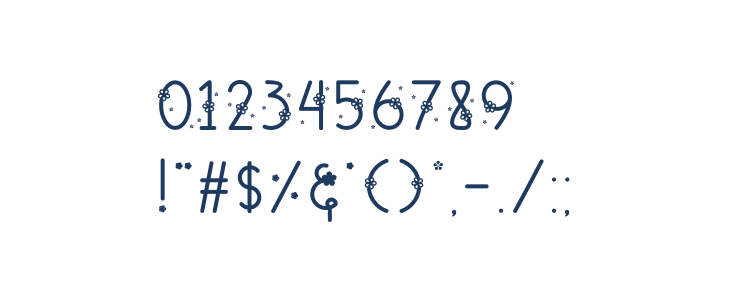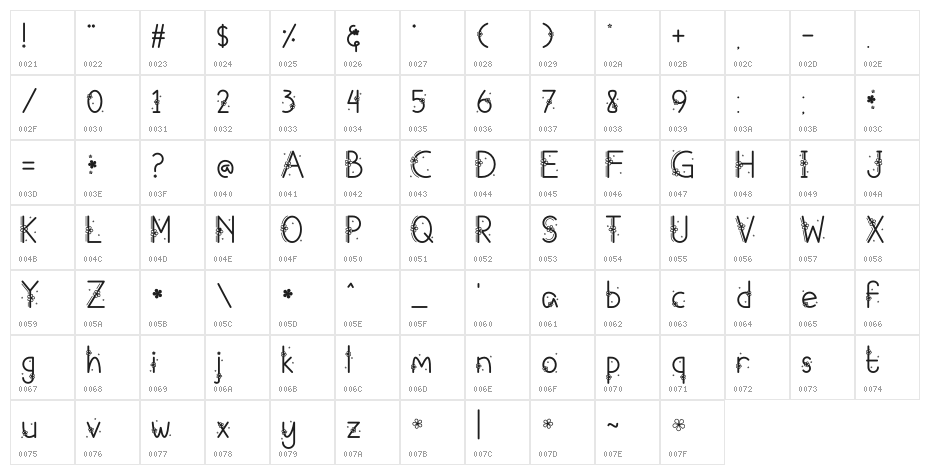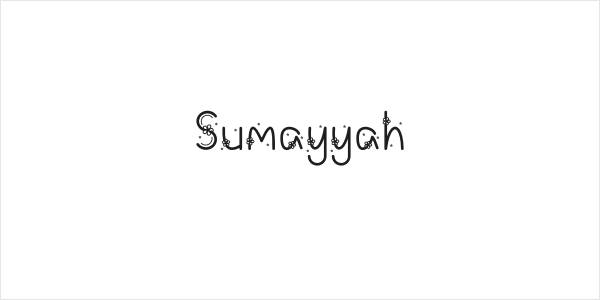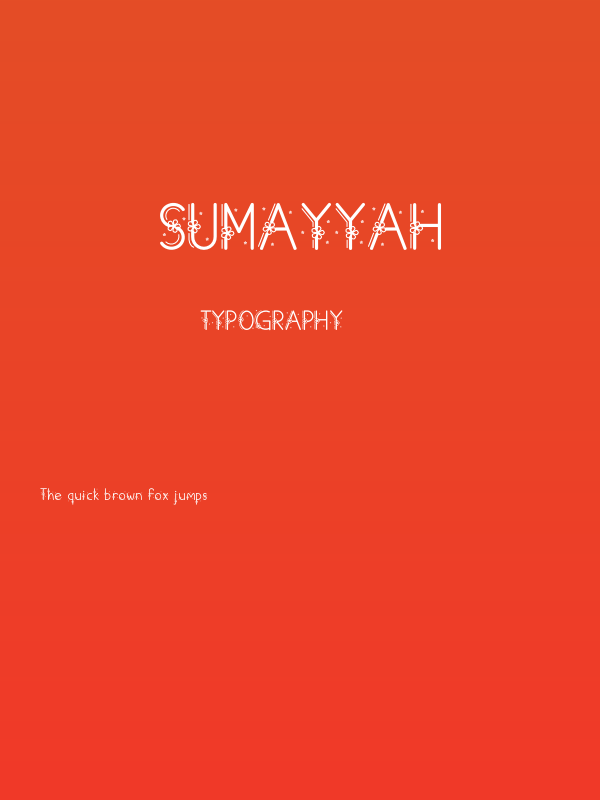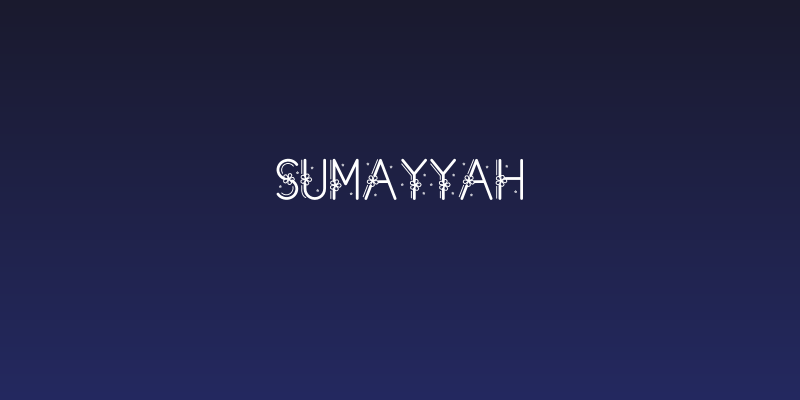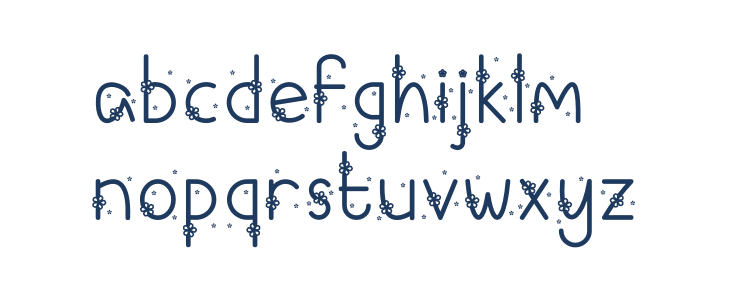
Sumayyah Font
Sumayyah Description
This decorative font features a playful and whimsical design, incorporating small floral elements within the structure of each character. The uppercase and lowercase letters maintain a consistent style, with rounded edges and a moderate stroke width. The numbers and special characters follow the same theme, ensuring a cohesive look throughout. The floral details add a unique touch, making it suitable for creative and artistic projects. The font's overall appearance is light-hearted and fun, perfect for designs that aim to convey a sense of joy and creativity.
| Use Case | Logos, Invitations, Creative Projects |
| Proposed Projects | Ideal for greeting cards, children's book covers, playful branding, and event invitations. |